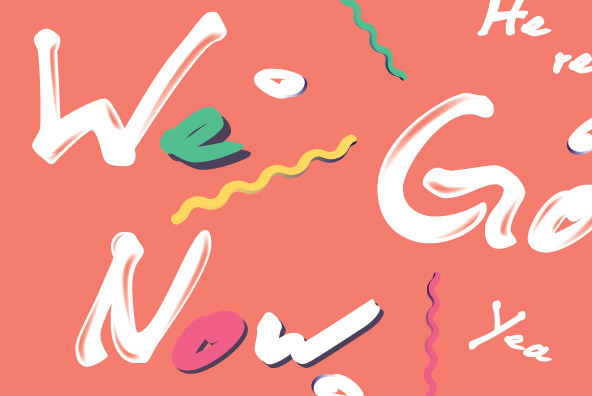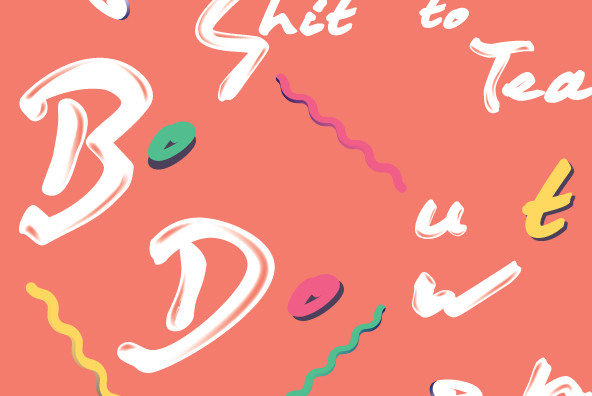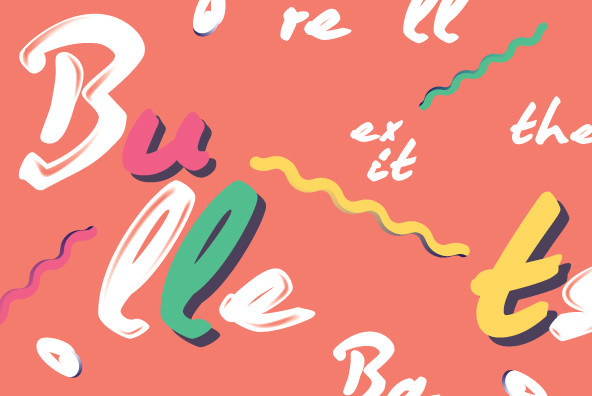
Quendel Font
Quendel
The typeface Quendel, made by Anita Juergeleit, is an expressive handwriting with a unique personality. Quendel is made to accentuate powerful and emotional messages. It has a high recognition value and a letter shape, which caresses your eye.